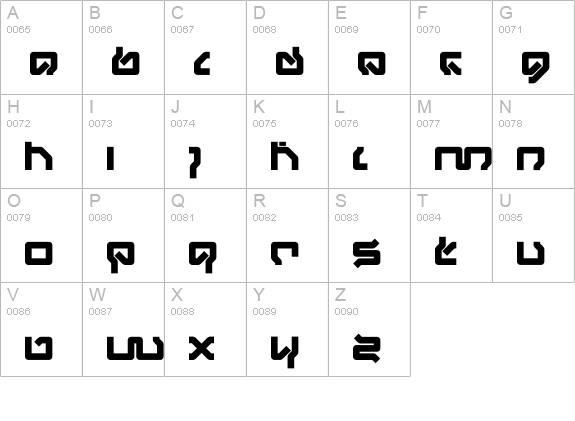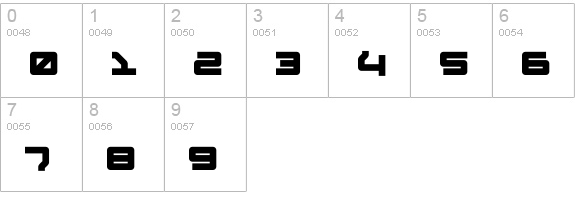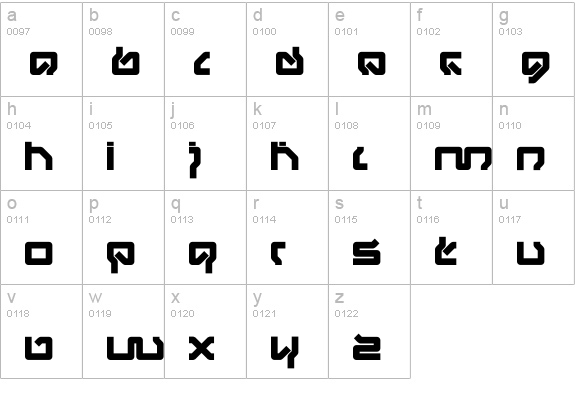
DS Mufdi Font Details
DS Mufdi font is a modern and stylish typeface that exudes elegance and sophistication. Its sleek and clean design makes it perfect for a wide range of design projects, from branding to editorial design. The font features a unique combination of sharp lines and smooth curves, giving it a contemporary and polished look. One of the best things about DS Mufdi font is that it is available for free download at FontsMarket.com. This means that you can easily access this high-quality font without having to spend a dime. Whether you're a professional designer looking for a versatile typeface or a student working on a creative project, DS Mufdi font is a fantastic choice that won't break the bank. With its timeless appeal and versatile design, DS Mufdi font is sure to elevate any design project to the next level. Download it for free today and add a touch of sophistication to your next project.